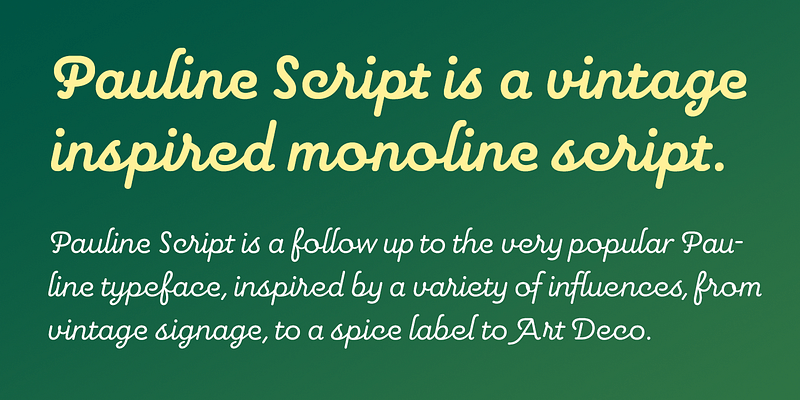
Pauline Script Font Free Download
Pauline Script Font Free Download is a graceful, elegant script typeface designed with delicate curves and flowing lines. With its classic calligraphy-inspired design, Pauline Script is perfect for wedding invitations, branding, greeting cards, luxury logos, and any project that calls for a sophisticated, handwritten touch.
This font brings a refined, timeless appeal to your designs, making it ideal for high-end, personal, and artistic projects. Its flowing cursive style ensures that it stands out in both large and small text, providing versatility in all types of creative designs.